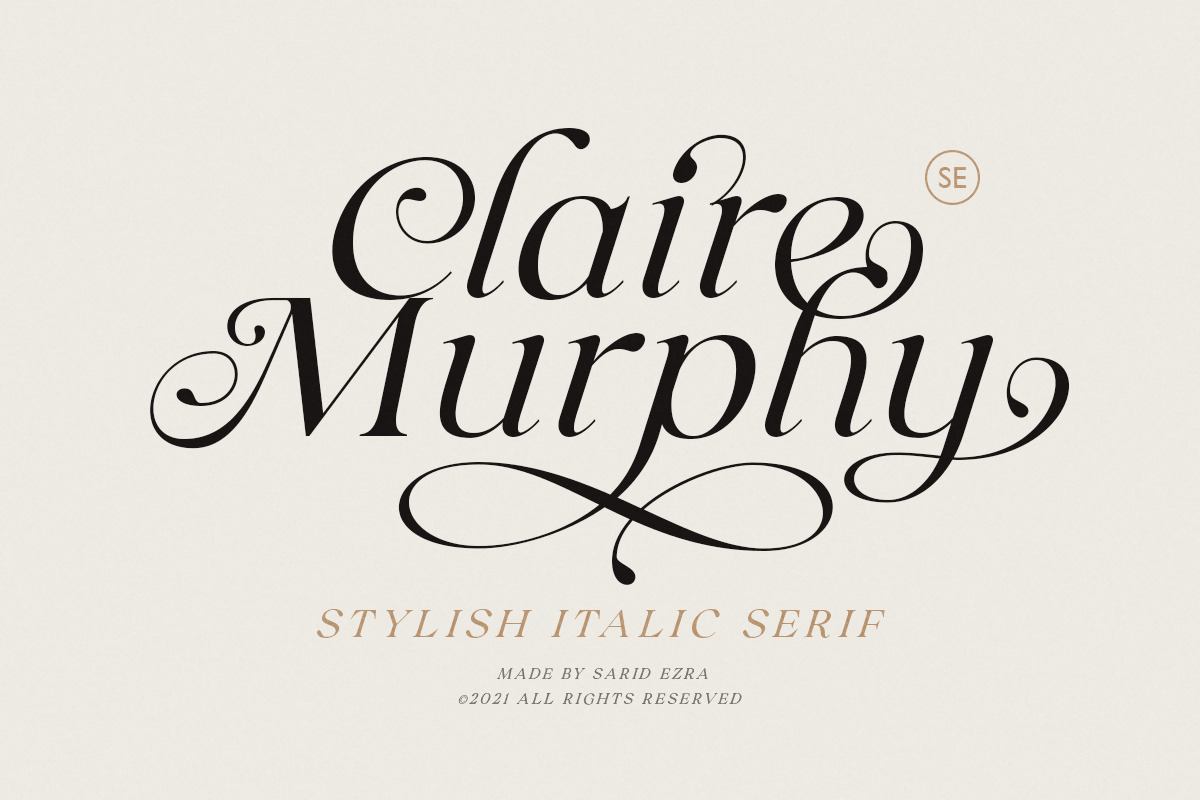
Claire Murphy - Stylish Italic Serif Free Download
Claire Murphy Font Free Download is a stylish italic serif typeface that blends elegance with contemporary flair. With its graceful slanted design, high contrast strokes, and sophisticated serifs, Claire Murphy is ideal for fashion branding, luxury editorial designs, invitations, logos, and other projects that require a refined, stylish touch.
The font features italicized letterforms that give your typography a dynamic and artistic feel. It includes uppercase and lowercase letters, numerals, punctuation, and stylish ligatures, allowing you to create chic, flowing compositions.
Whether you're crafting a high-end brand identity, designing a beautiful wedding invitation, or creating an elegant editorial spread, Claire Murphy Font Free Download offers the perfect combination of style and sophistication. Test it out in personal projects or mockups, and be sure to secure the proper license for any commercial use. Add refined elegance to your designs with this stylish italic serif font.